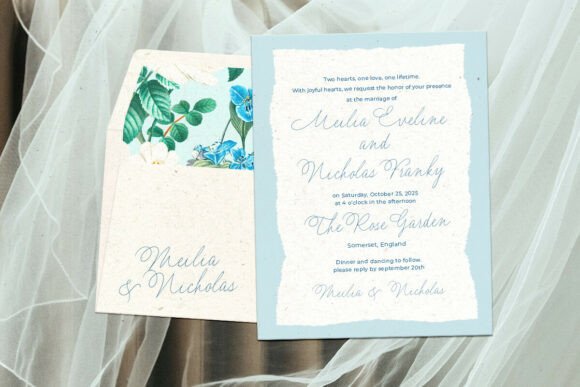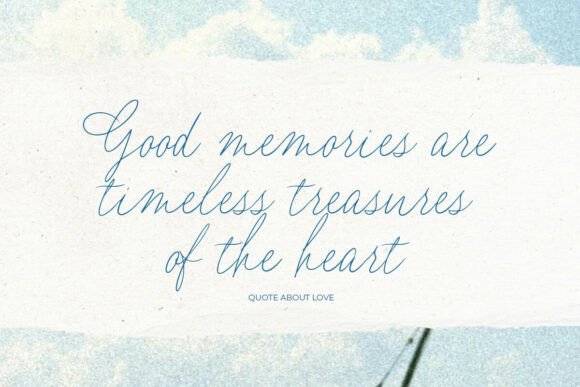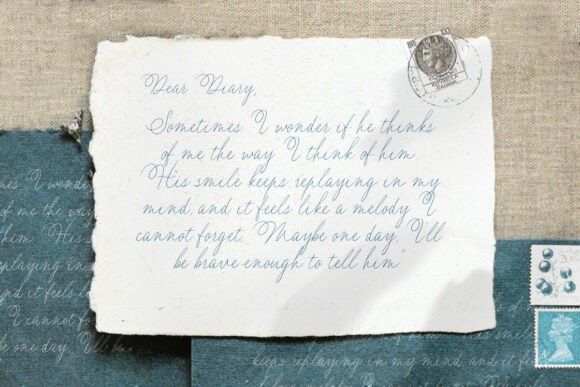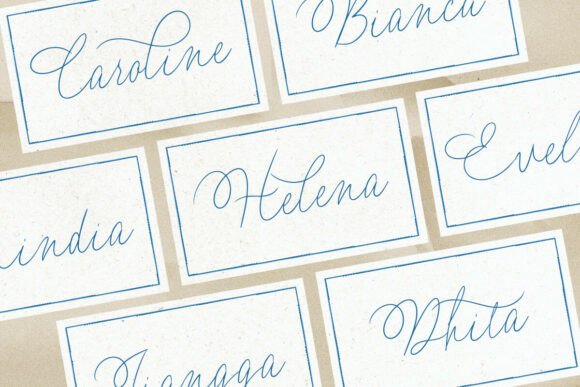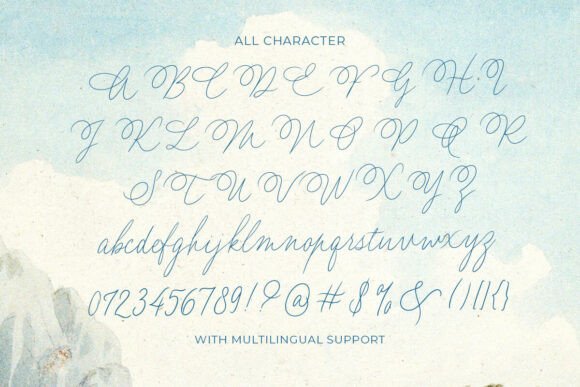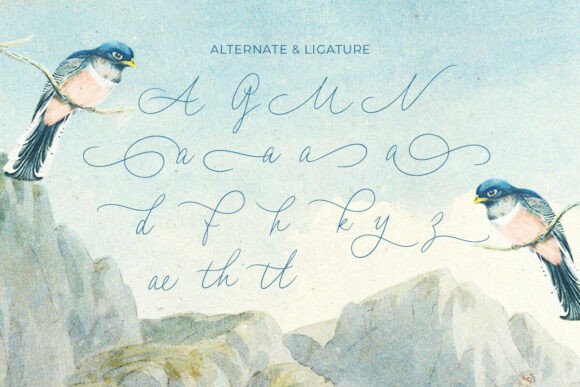
Introduction to Mantra Angelic Pua Font
Mantra Angelic is a graceful handwritten script font that radiates elegance and warmth.
With its flowing curves, delicate swashes, and natural handwritten rhythm, this font feels soft, romantic, and timelessโperfect for wedding invitations, greeting cards, branding, quotes, packaging, and any project that needs a touch of sophistication Its angelic strokes bring a refined charm without losing the organic, personal feel of real handwriting, making it versatile for both formal and creative designs.
Key Features of Mantra Angelic Pua Font